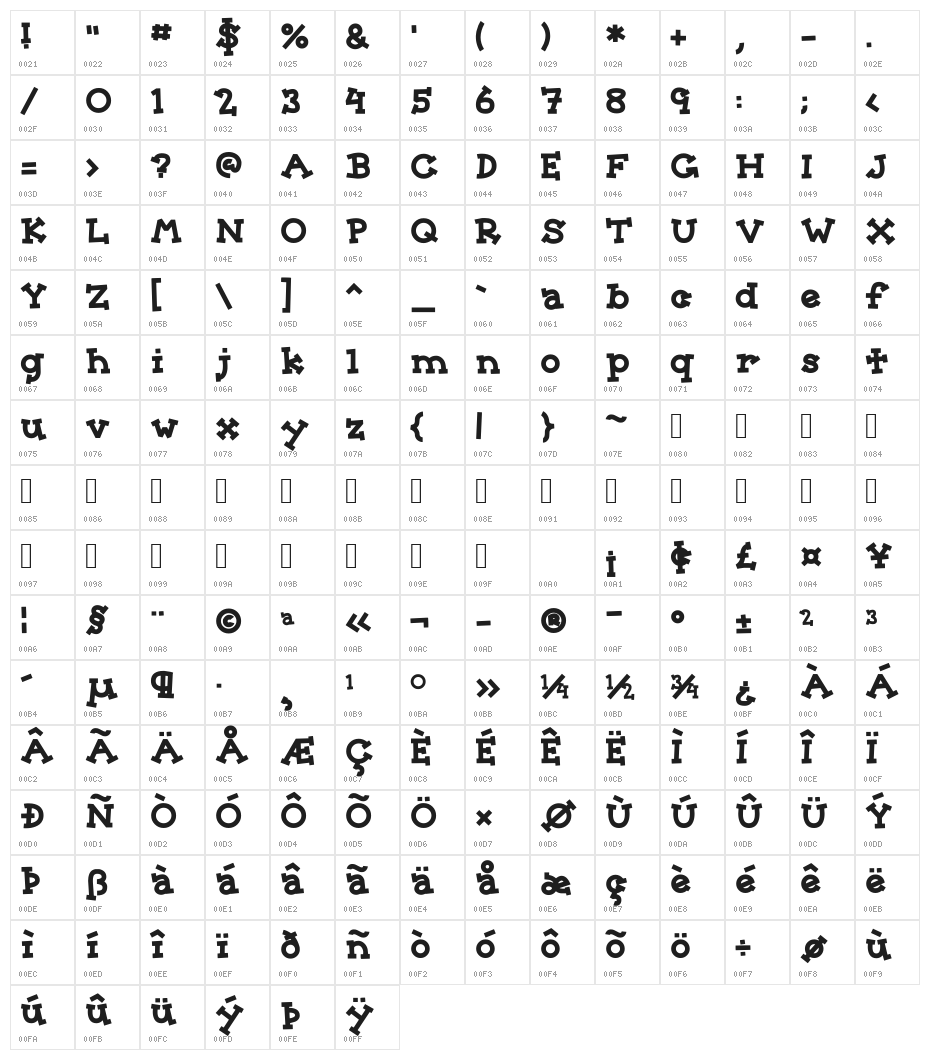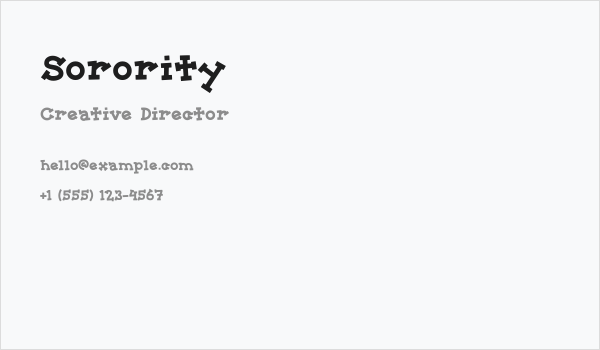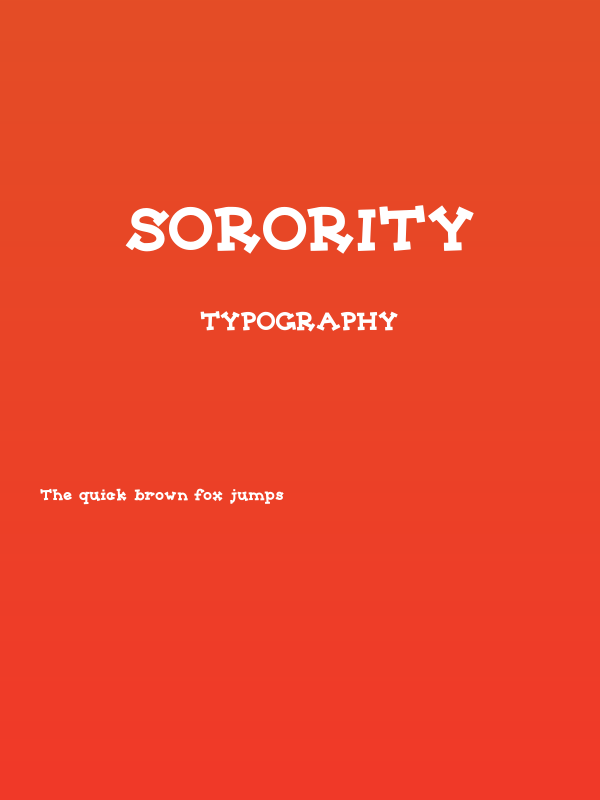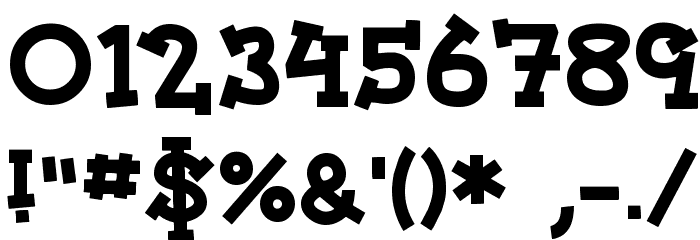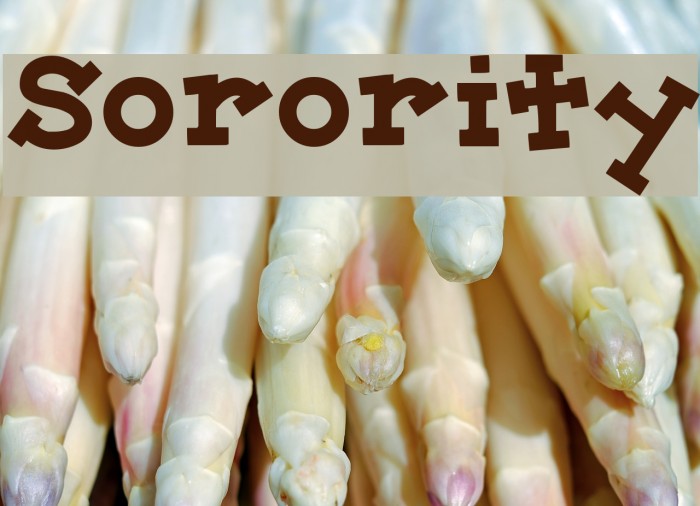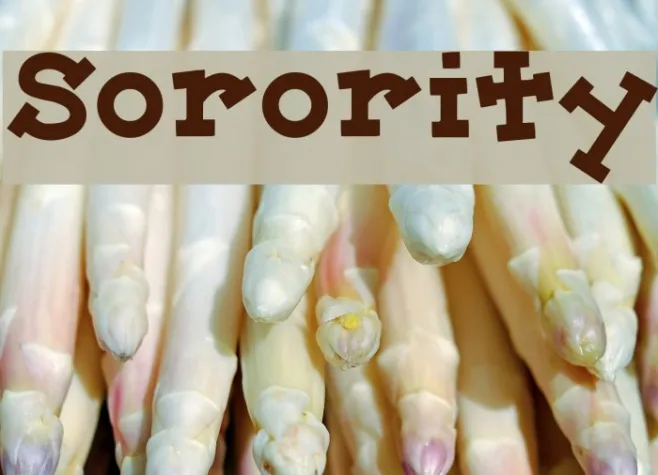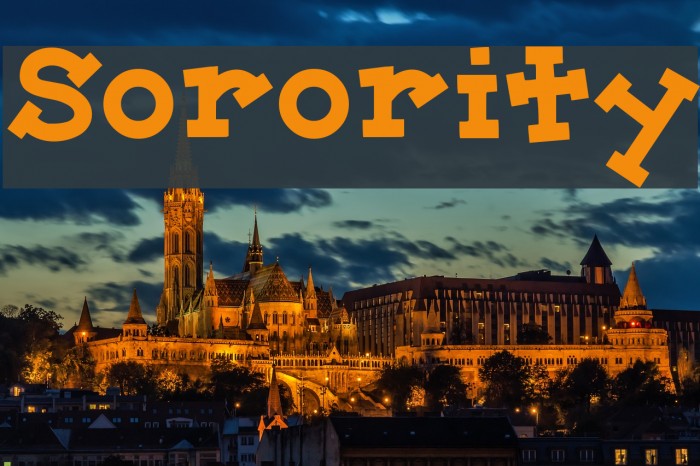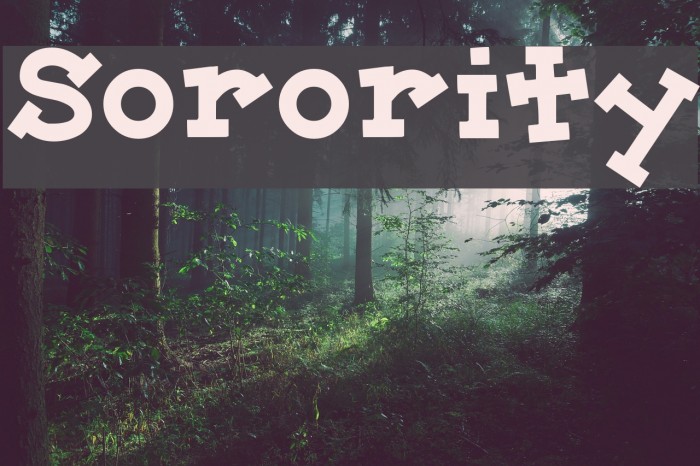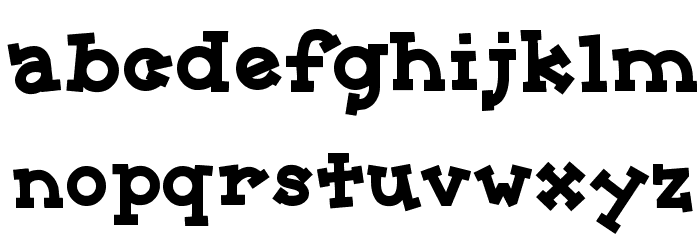
Sorority Font
Sorority Description
This font features a playful and bold style with a distinctive, quirky character design. The letters are thick and have a slightly irregular shape, giving them a whimsical and fun appearance. The uppercase and lowercase letters maintain a consistent boldness, while the numbers and special characters follow the same playful theme. The font's unique style makes it stand out, with each character having a slightly tilted or rotated appearance, adding to its charm. This font is perfect for projects that require a touch of humor and creativity.
| Proposed Projects | Ideal for children's books, playful branding, party invitations, and creative posters. |